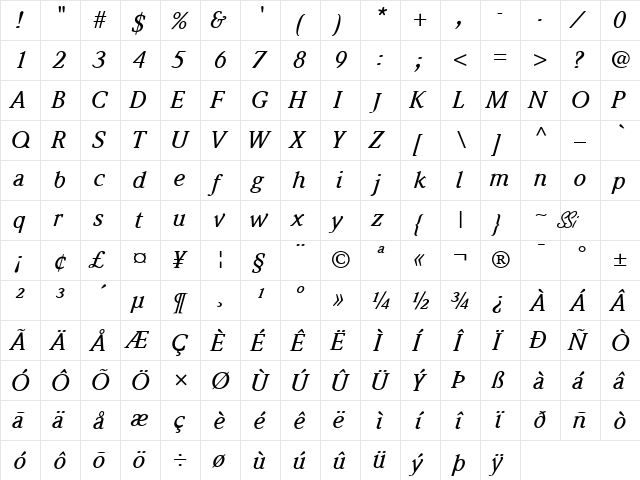
Quintessence Medium SSi Medium Italic
Design Context for Quintessence Medium SSi Typeface
Quintessence Medium SSi offers clean, dependable letterforms without strong stylistic allegiance, making it a practical choice for designers who need flexibility. The dynamic lean of this cut emphasises speed and emphasis in any layout.
Pro Tip: Use Quintessence Medium SSi for emphasis, pull quotes, and subheadings where its slanted energy can add rhythm to the layout.